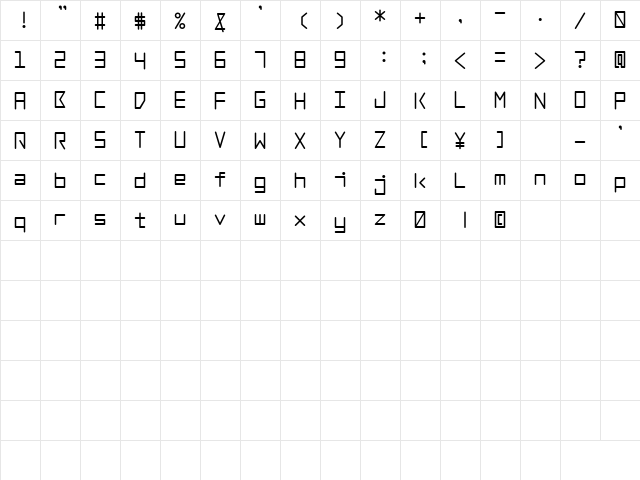
MW QUOIN Regular
Design Context for MW QUOIN Typeface
MW QUOIN offers clean, dependable letterforms without strong stylistic allegiance, making it a practical choice for designers who need flexibility.